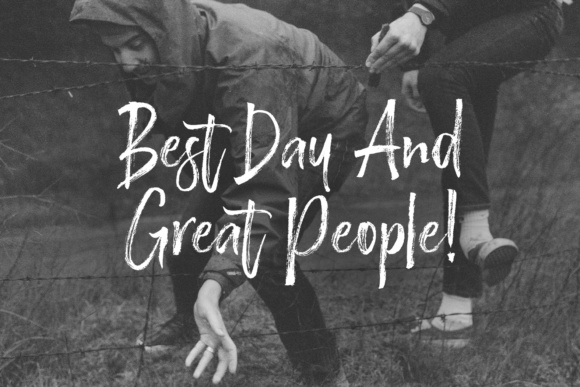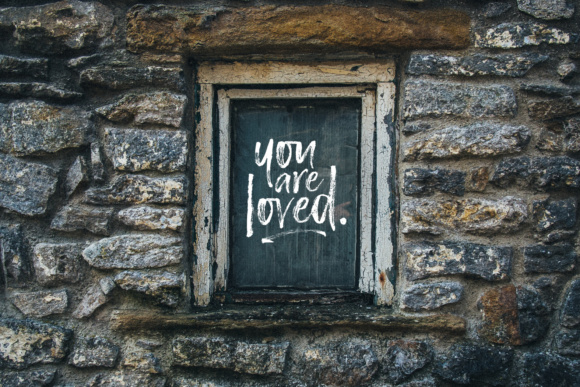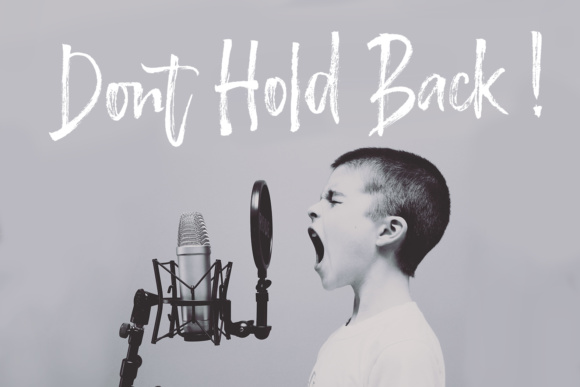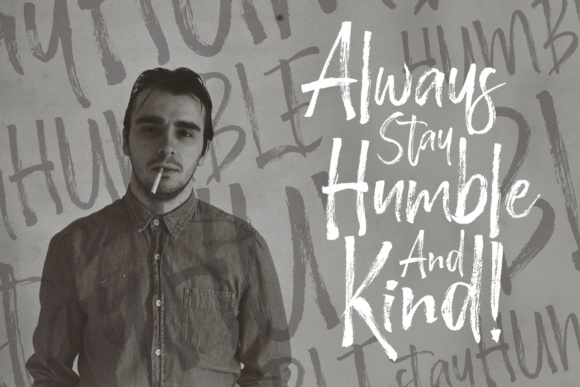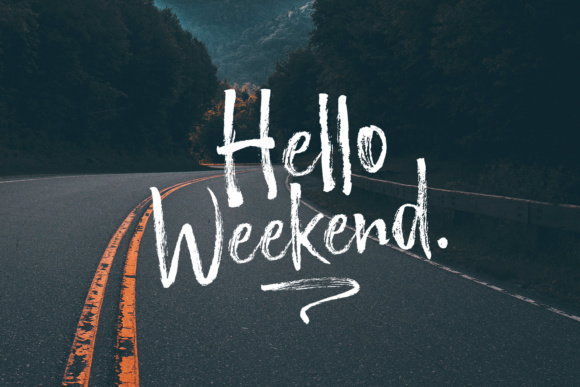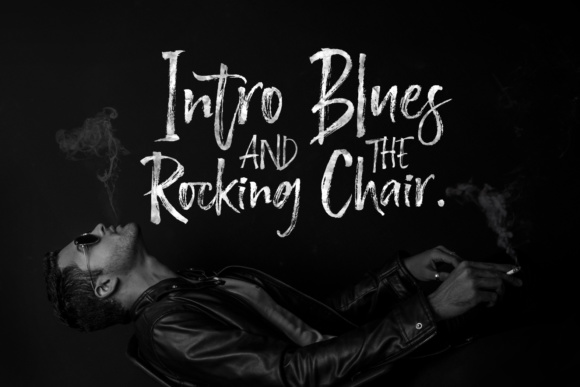
Brestonk Font
About Brestonk Font
Brestonk is a beautiful script font with textured stroke details, so you can have all your designs impacted by type that is casual and relaxed. This font is perfect for designs that need a warm appeal.